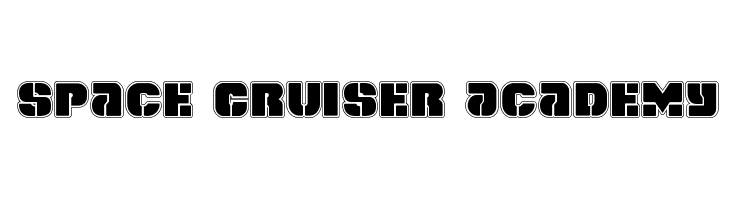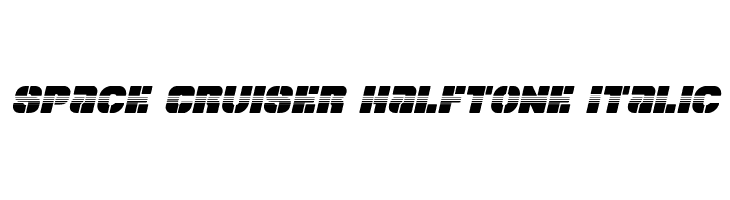
A bold, futuristic font with geometric, blocky characters.
A bold, italic, futuristic font with outlined characters and a retro sci-fi vibe.
A futuristic, bold font with chrome-like, geometric lines and horizontal stripes.
A futuristic, italicized font with a chrome-like, layered design.
A bold, futuristic font with a condensed, geometric design.
A bold, futuristic, condensed italic font with sharp angles and dynamic style.
A bold, expanded font with a futuristic, geometric design.
A bold, expanded, and italicized futuristic font with a modern, space-age aesthetic.
A bold, futuristic font with a halftone effect and dynamic, space-age design.
A bold, italicized font with a futuristic halftone effect.